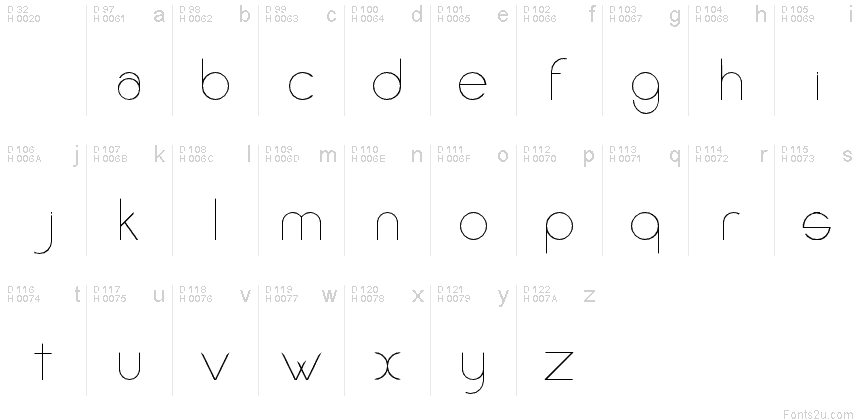
Amorino by Daniel Augusto is a free geometric sans serif. Its hairline strokes trace broad circles and tall, spare verticals, with clean breaks and sharply cut joins giving the otherwise rounded lettering a precise architectural character.
Identity projects for contemporary fashion labels are its strongest setting, and the same slender geometry can lend perfume packaging, gallery posters, and arts publishing an understated, carefully drawn signature. The design will appeal most to studios and cultural brands seeking refined display lettering that feels airy and modern, yet remains distinctive through its oversized curves and unusually economical construction across beauty and design markets.
Created as a Projectual Practice paper under the guidance of Prof. Sergio Lemos in the Graphic Design class at the University of the State of Minas Gerais, Belo Horizonte, Minas Gerais, Brazil.